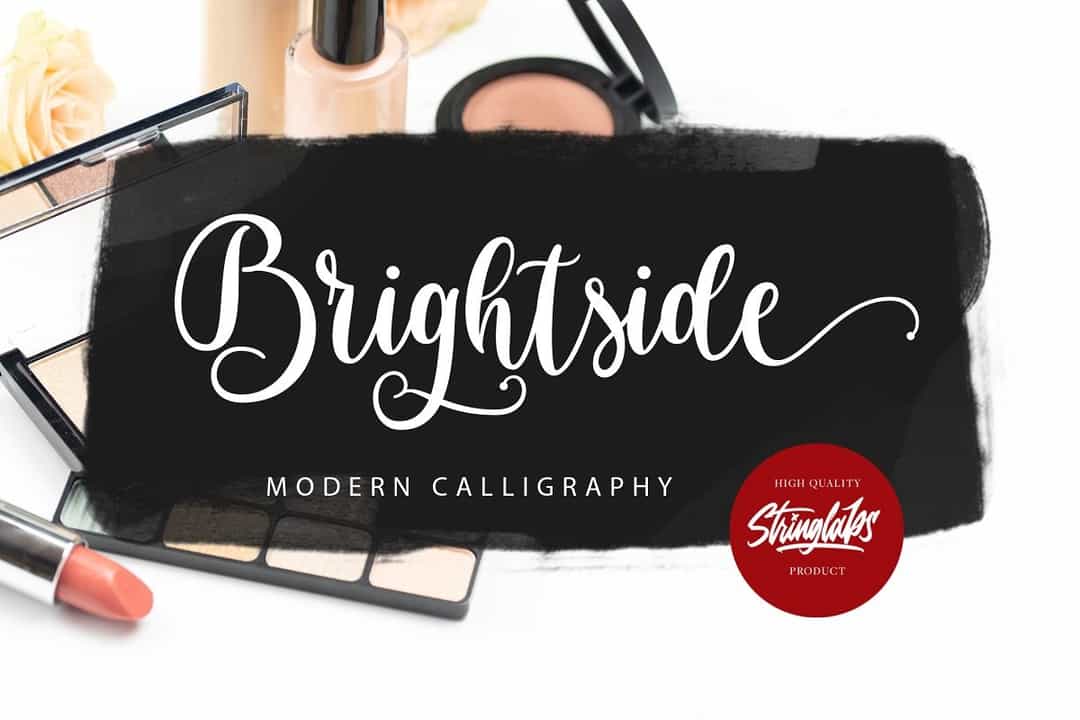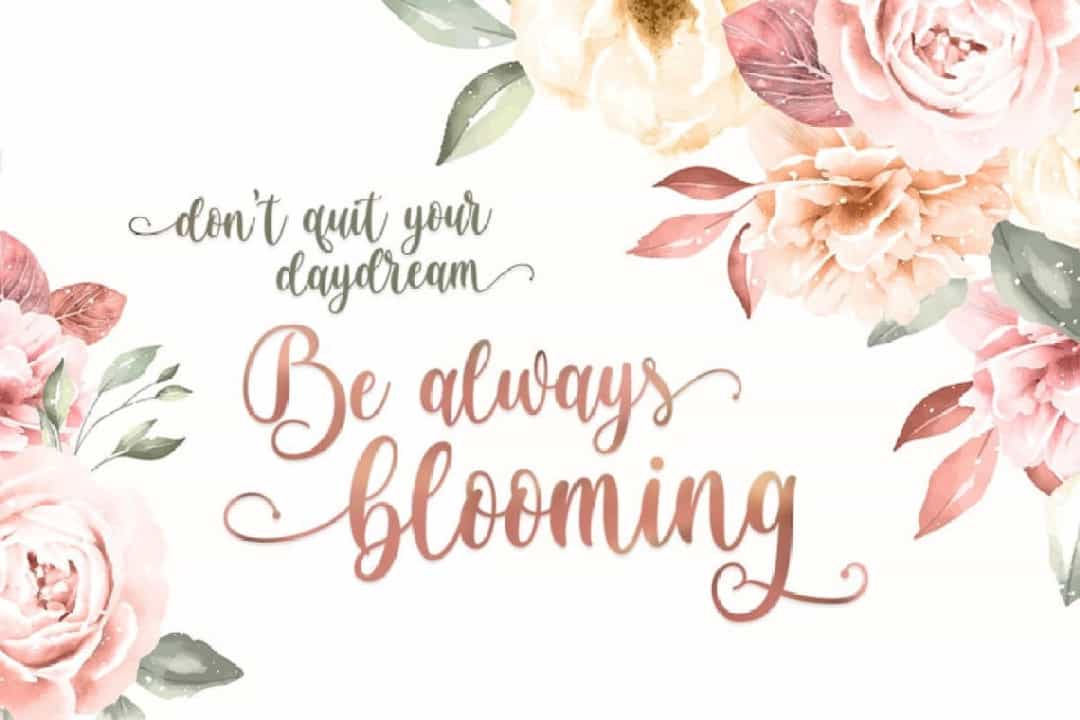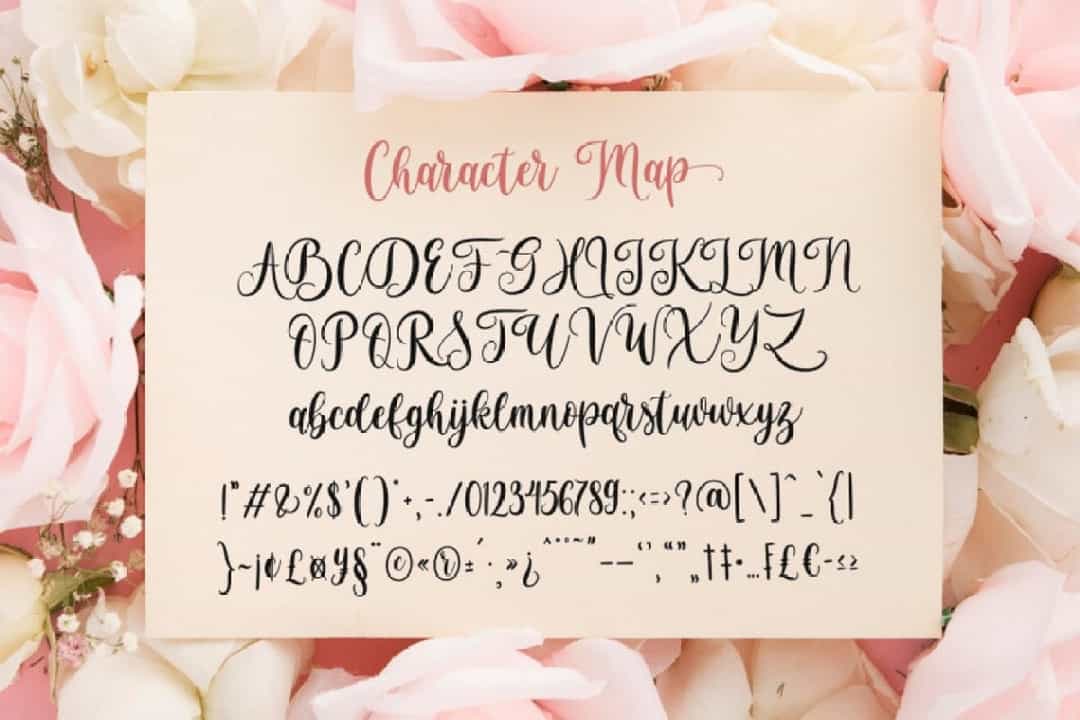
Brightside is a beautiful and modern font that is that belongs to the Calligraphy category. It is PUA encoded, so you will have all the swashes and glyphs at your fingertips! It has a new baseline, clean design, nice glyphs and stunning alternates. You can take any idea that you have in mind and Brightside will be more than glad to create a beautiful art piece out of it. This font has personality with lowercase and uppercase and a fluidity making it perfect for wordmarks and logos.